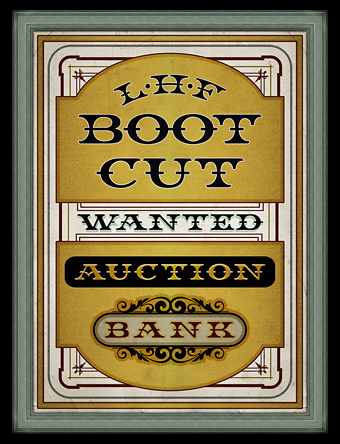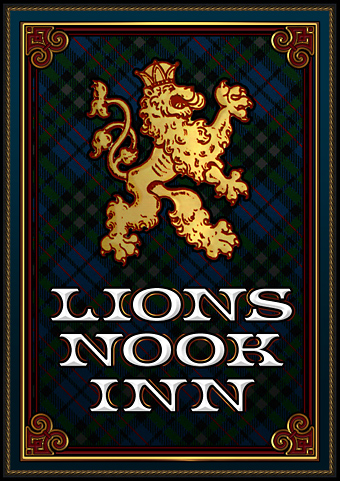
BOOTCUT WITH
CENTENNIAL PANELS 2
AND
GOLDEN ERA ART ELEMENTS
With Ephemera Script
LHF Bootcut
by
Tom Kennedy
Bootcut is an unusual western style font set featuring 3 different versions. Small caps differ slightly and are raised a bit.
LHF Bootcut Regular
LHF Bootcut Spurs
LHF Bootcut Fancy